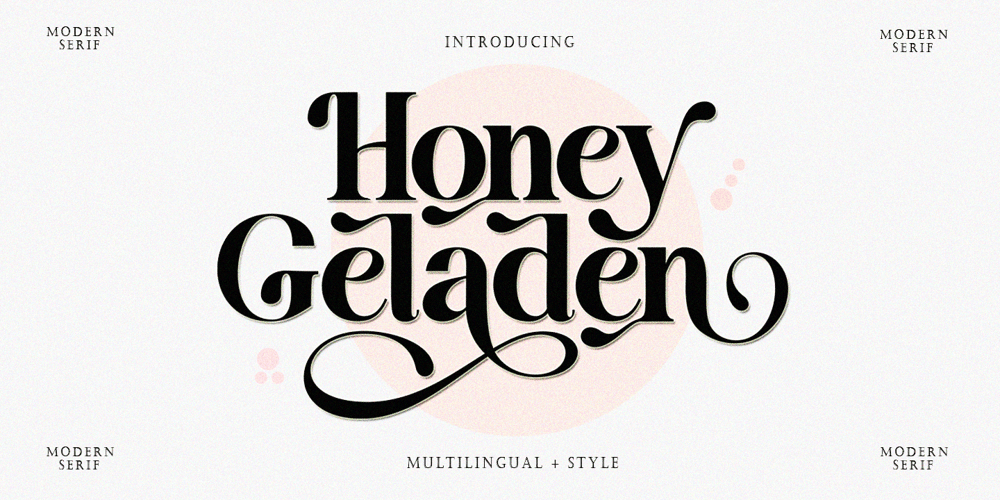
Honey Geladen Font Family was designed by Wahi Din and published by Gold Type. Honey Geladen contains 1 styles and family package options. Honey Geladen is a beautiful, versatile serif font. This font is characterized by a serif style with a luxurious style in a modern form, but also a friendly and playful style in bold, Best Swashed has glyphs to give crafters more options in designing. This modern style will make a design appear more classy, elegant, unique and edgy.-Uppercase and lowercase letters, Numbers and punctuation, Multilingual support, PUA encoded fonts, Alternative styles and ligaturesThank You